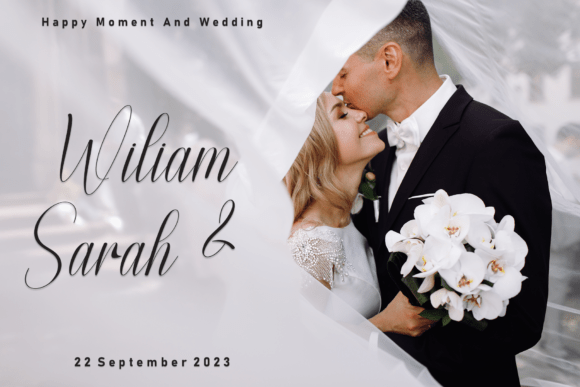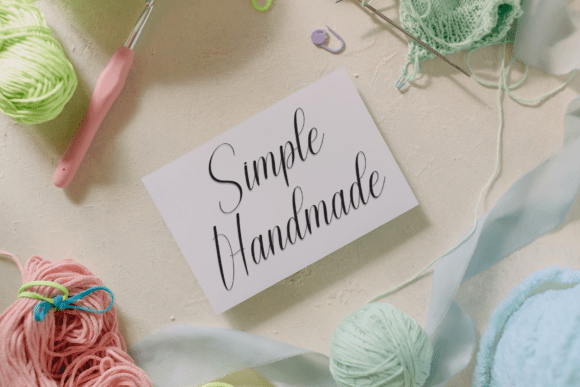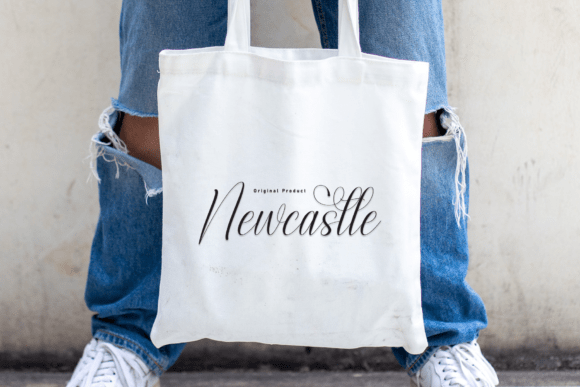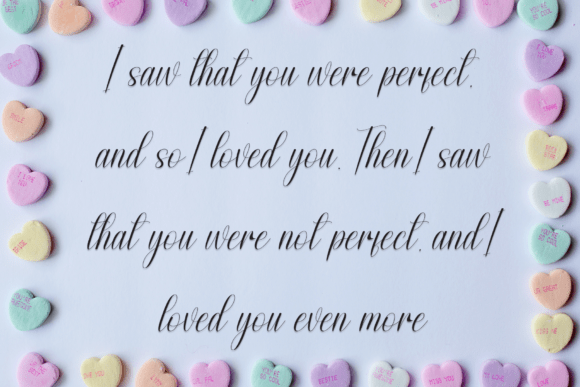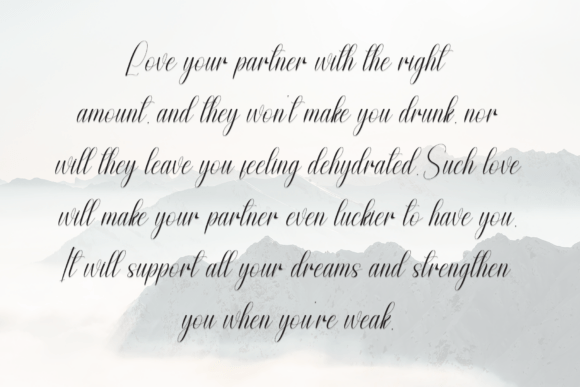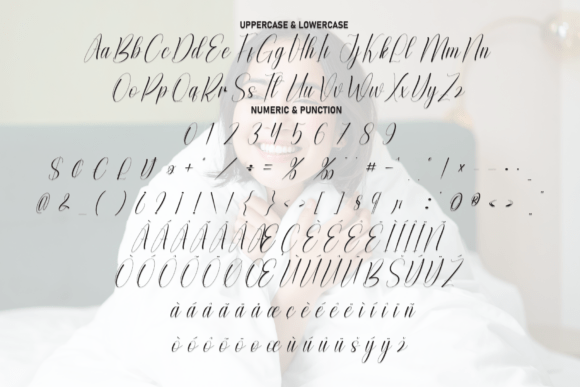
Introducing Blanket Font: The Ultimate Handwritten Script for a Touch of Whimsy
Are you tired of using the same old fonts in your designs? Do you want to add a dash of sweetness and friendliness to your creations? Look no further than the Blanket Font, a charming handwritten script font that’s perfect for infusing a touch of whimsy into your designer toolbox. In this article, we’ll dive into the world of Blanket Font, exploring its features, uses, and benefits for designers and crafters alike.
A Versatile and Adorable Font
The Blanket Font is an incredibly versatile cursive gem that’s sure to capture the hearts of designers and crafters. Its adorable demeanor makes it especially befitting for wedding invitations, endearing cards, or any design endeavor seeking a splash of whimsy. Whether you’re creating a romantic wedding invitation or a playful greeting card, this font is sure to add a touch of magic to your design.
Features of Blanket Font
So, what makes Blanket Font so special? Here are just a few of its standout features:
- Handwritten script: Blanket Font is a beautifully crafted handwritten script font that’s full of character and personality.
- Adorable demeanor: This font has an irresistibly charming quality that’s sure to make your designs stand out.
- Versatile: Blanket Font is perfect for a wide range of design projects, from wedding invitations to greeting cards, and more.
- Easy to read: Despite its whimsical nature, Blanket Font is incredibly easy to read, making it perfect for both digital and print designs.
Uses for Blanket Font
So, how can you use Blanket Font in your designs? Here are just a few ideas to get you started:
- Wedding invitations: Add a touch of romance and whimsy to your wedding invitations with Blanket Font.
- Greeting cards: Create endearing greeting cards for birthdays, holidays, or special occasions with this charming font.
- Branding: Use Blanket Font to add a touch of personality to your brand’s packaging, website, or marketing materials.
- Social media graphics: Create eye-catching social media graphics with Blanket Font to make your content stand out.
Benefits of Using Blanket Font
So, why should you choose Blanket Font for your designs? Here are just a few benefits of using this amazing font:
- Adds a touch of whimsy: Blanket Font is the perfect way to add a dash of whimsy and playfulness to your designs.
- Increases engagement: The charming nature of Blanket Font is sure to capture the hearts of your audience and increase engagement with your designs.
- Versatile: This font is perfect for a wide range of design projects, making it a great addition to your designer toolbox.
- Easy to use: Blanket Font is incredibly easy to use, making it perfect for designers of all skill levels.
In conclusion, Blanket Font is a charming handwritten script font that’s perfect for infusing a touch of sweetness and friendliness into your designs. With its adorable demeanor, versatility, and ease of use, this font is sure to become a staple in your designer toolbox. Whether you’re creating wedding invitations, greeting cards, or social media graphics, Blanket Font is the perfect choice for adding a dash of whimsy and personality to your designs. So why wait? Download Blanket Font today and start creating enchanting designs that will resonate with your audience like never before!